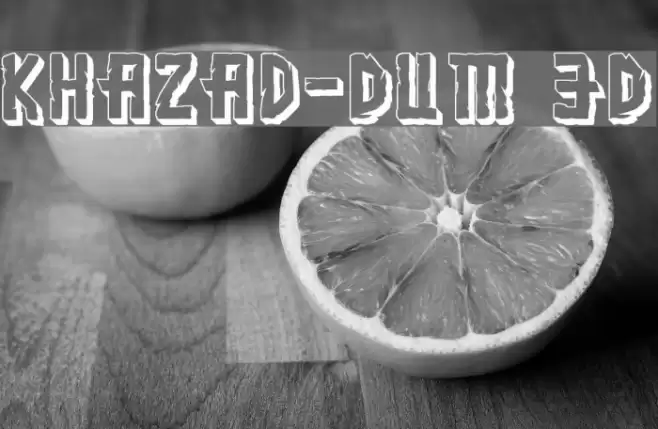
Khazad-Dum 3D Font
Khazad-Dum 3D Description
This font features a bold, three-dimensional style with a rugged, stone-like texture. The characters are blocky and angular, giving a sense of strength and solidity. The 3D effect is achieved through shadowing, which adds depth and a dramatic appearance. Each letter is distinct, with sharp edges and a slightly uneven surface that mimics the look of carved stone. This font is particularly striking in uppercase, where the boldness and texture are most pronounced. The numbers and special characters maintain the same stylistic elements, ensuring consistency across all glyphs.
A bold, 3D stone-textured font with a rugged, angular design from Uncategorized fonts.
- Proposed Projects: Ideal for fantasy-themed projects, video game titles, movie posters, or any design requiring a strong, dramatic impact.